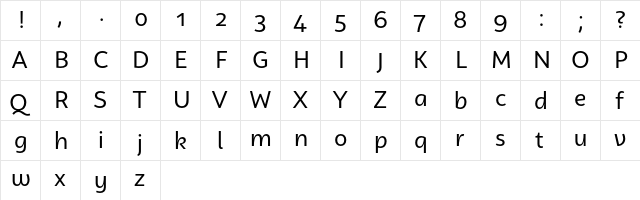
Campuni Demo Regular
| Foundry | Moritz Kleinsorge |
| Designer | Moritz Kleinsorge |
Design Context for Campuni Demo Typeface
Campuni Demo takes a measured approach to typography — its balanced proportions and neutral character make it a reliable workhorse for both digital and print work.